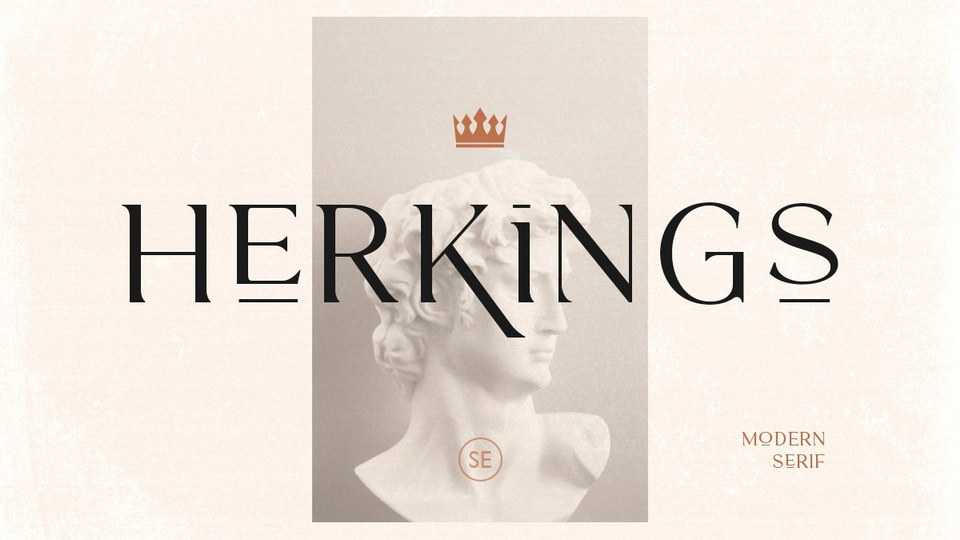
Download Herkings font, a minimalist and modern serif typeface that’s versatile and unique. It can be used for branding, logos, business cards, apparel designs, movies, magazines and more.